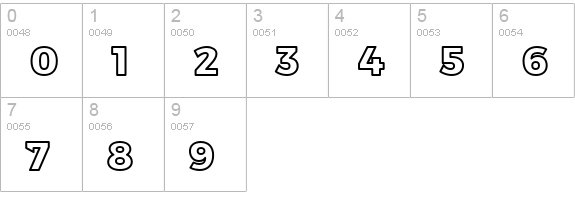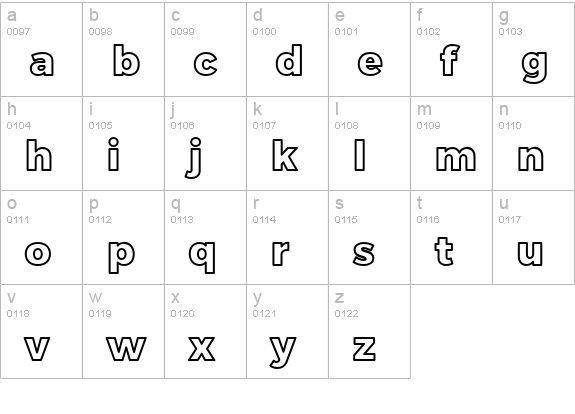
Trueno ExtraBold Outline Font Details
Trueno ExtraBold Outline is an extra-heavy, attention-grabbing variant in the Trueno typeface family \xE2\x80\x94 well suited to high-impact headlines, posters, and bold branding.
Trueno ExtraBold Outline font is a mesmerizing display typeface that exudes a bold and captivating presence. Its strong and distinct outlines make it perfect for creating eye-catching headlines, titles, and logos that demand attention. With its crisp and modern aesthetic, Trueno ExtraBold Outline font truly stands out from the crowd. This font's unique design combines thick outlines with a sleek and stylish appearance, giving it a contemporary edge. Its commanding presence brings a sense of power and authority to any design project, making it an ideal choice for projects that require a strong and impactful visual impact. Trueno ExtraBold Outline font is not only visually stunning but also incredibly versatile. It can be used across a wide range of design applications, including advertising, branding, packaging, and more. Its clean and legible letterforms ensure readability even at smaller sizes, making it suitable for both print and digital projects. What's even better is that Trueno ExtraBold Outline font is available for free download at FontsMarket.com. This means that designers and creatives can easily access and utilize this exceptional font without any financial constraints. Whether you're a professional designer or a hobbyist, this free font allows you to bring your creative visions to life without breaking the bank. So, if you're looking to add a touch of boldness and sophistication to your design projects, Trueno ExtraBold Outline font is the perfect choice. Its striking appearance and availability as a free download make it a valuable asset in any designer's toolbox. Head over to FontsMarket.com now and unleash the power of Trueno ExtraBold Outline font in your next creative endeavor.